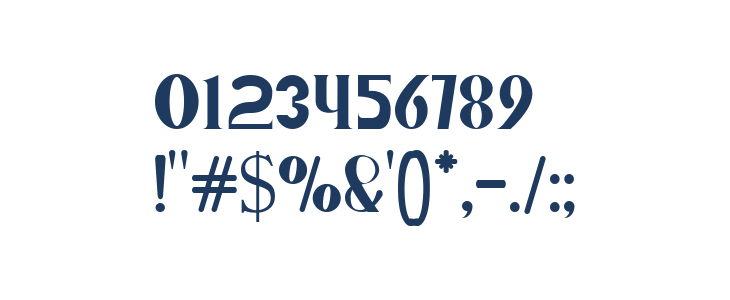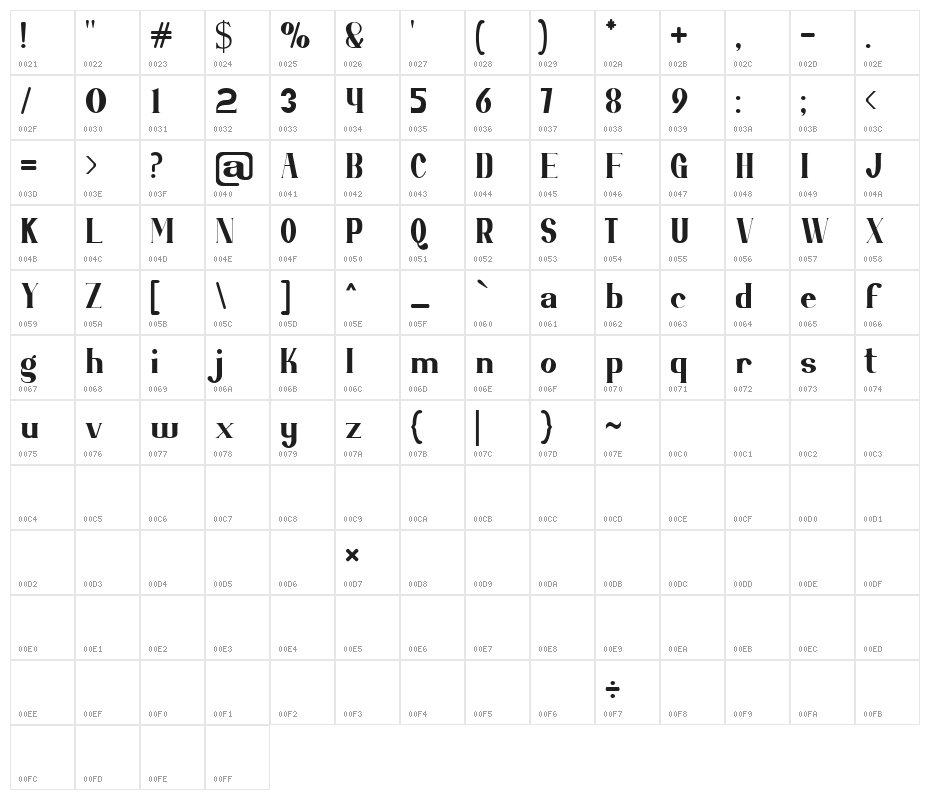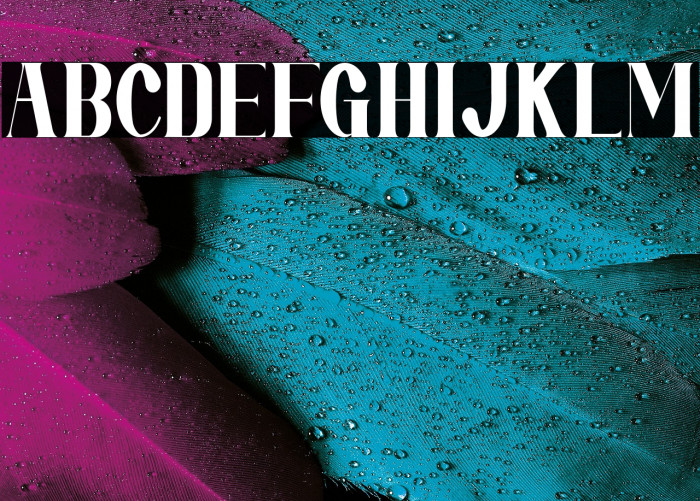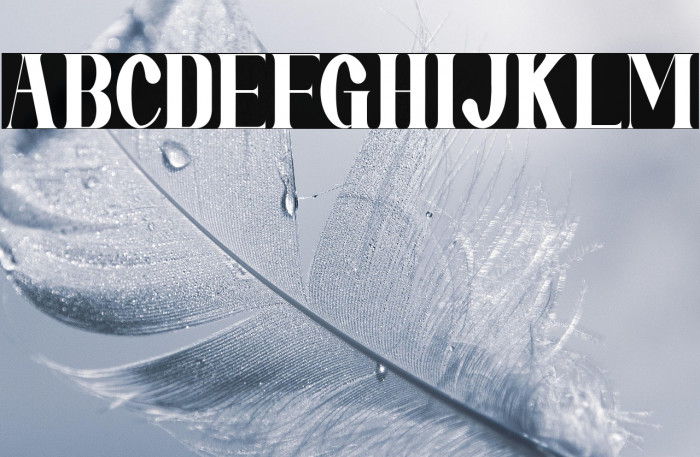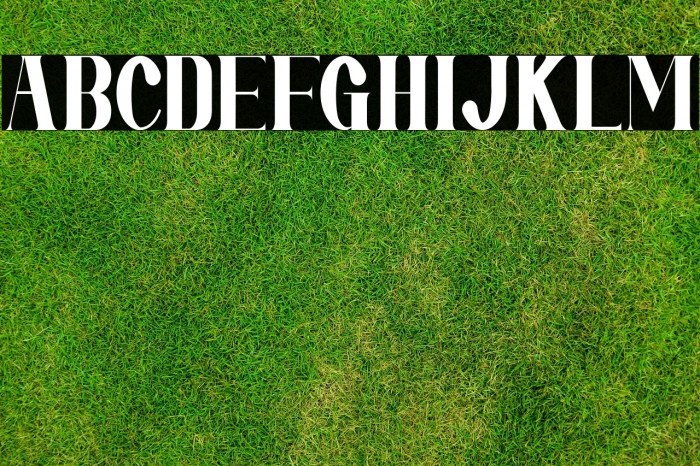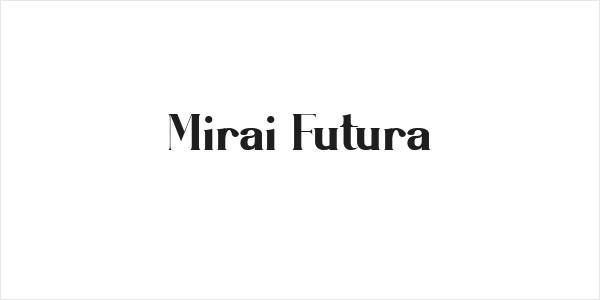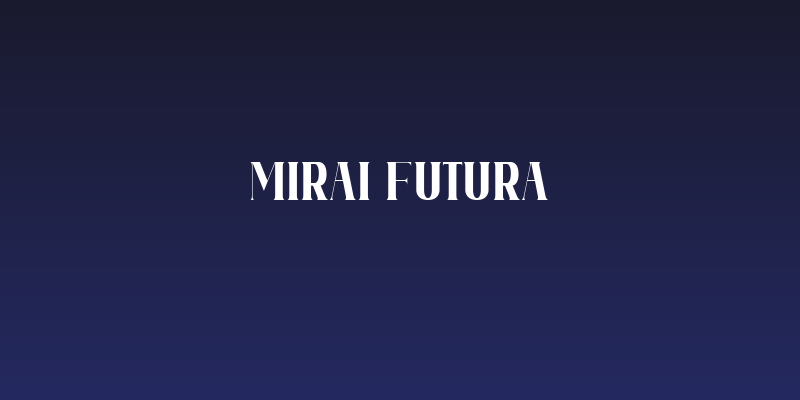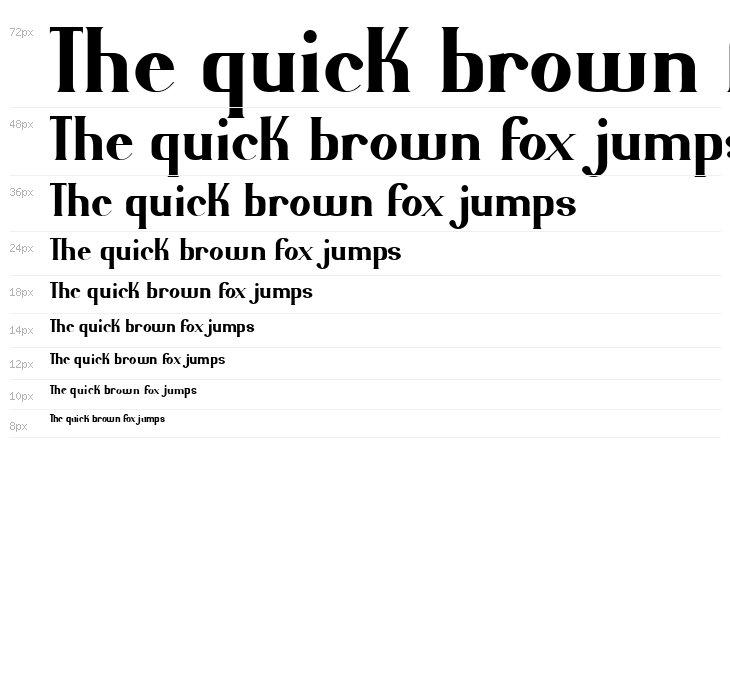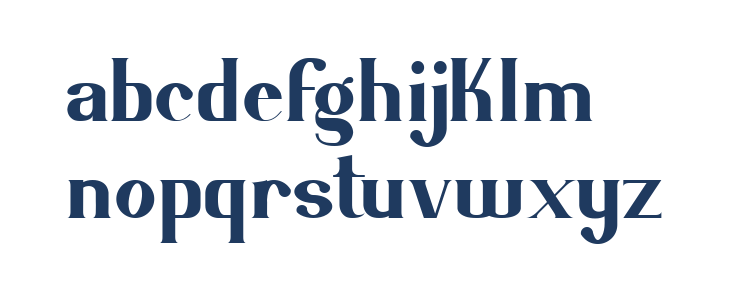
Mirai Futura Font
Mirai Futura Description
This font features a bold and striking design with a high contrast between thick and thin strokes, giving it a dramatic and eye-catching appearance. The uppercase letters have a strong presence with sharp serifs and a slightly condensed form, while the lowercase letters maintain a consistent style with rounded edges and a balanced weight. The numerals are bold and clear, making them easily readable. Special characters are designed with the same boldness and attention to detail, ensuring consistency throughout the font. This font's unique style makes it suitable for projects that require a distinctive and impactful look.
| Proposed Projects | Ideal for branding, poster design, headlines, and any project needing a strong visual impact. |